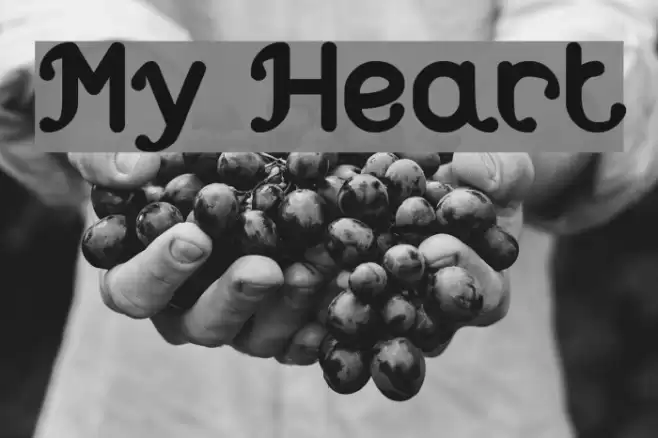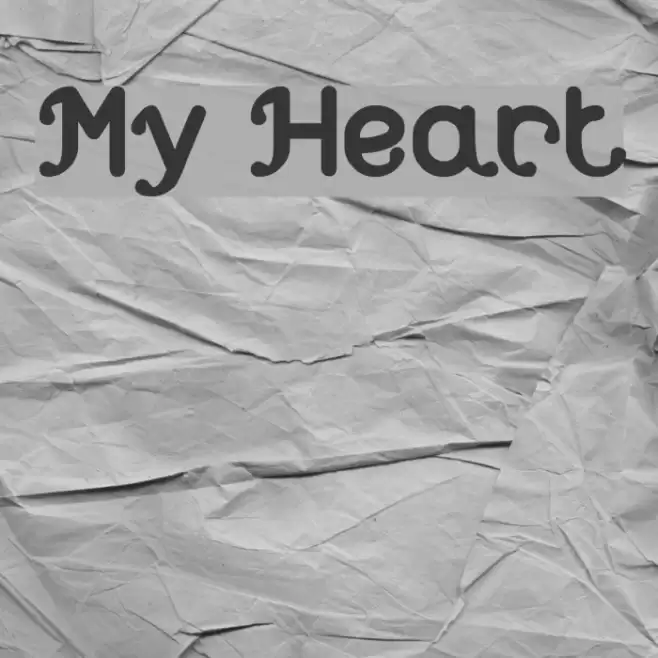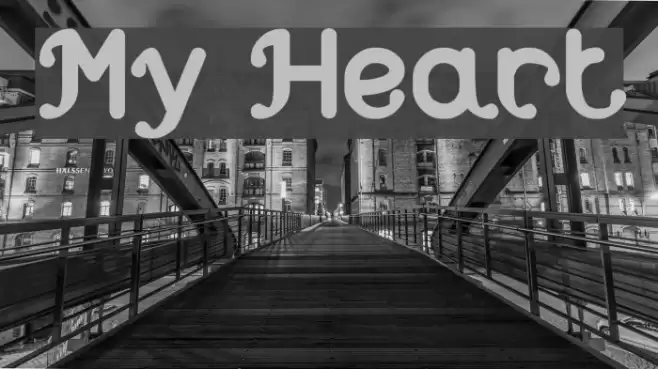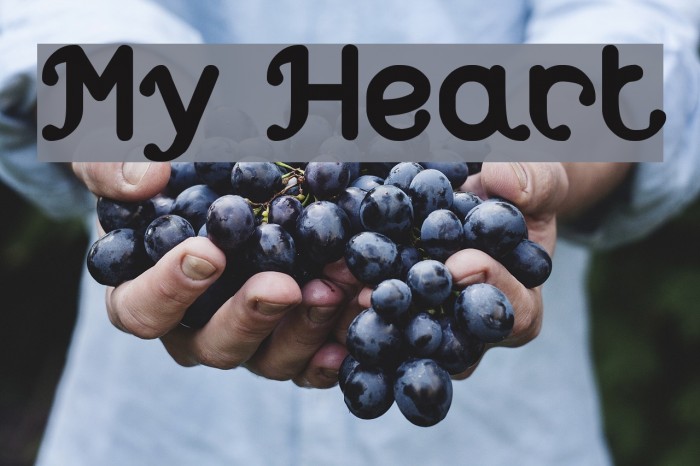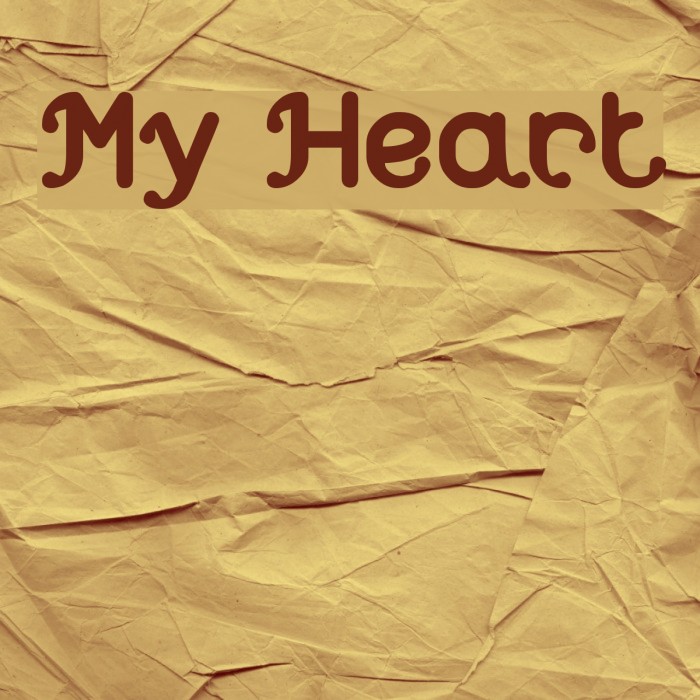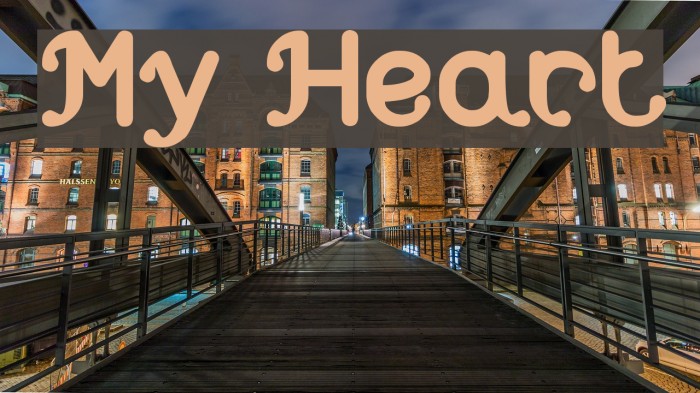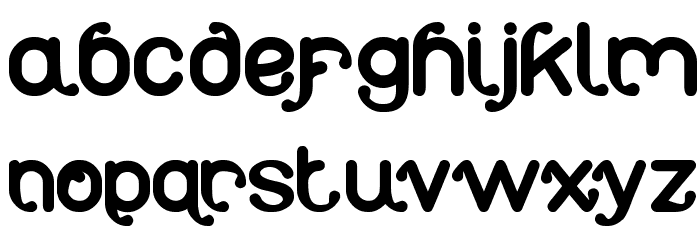
My Heart Font
My Heart Description
This font features a playful and decorative style, characterized by its unique, rounded serifs and whimsical flourishes. The letters are bold and have a consistent stroke width, giving them a strong presence on the page. The uppercase and lowercase letters share a similar design ethos, with the lowercase letters maintaining the same playful curves and rounded edges. The font includes a full set of numerals and a selection of special characters, which are designed with the same attention to detail and decorative flair. The overall appearance is both modern and vintage, making it versatile for various design projects.
A playful, decorative font with rounded serifs and whimsical flourishes from Uncategorized fonts.
- Proposed Projects: Ideal for greeting cards, children's books, playful branding, and decorative posters.
- Overall Style: Playful, Decorative